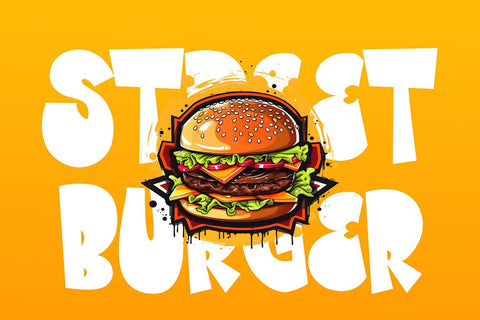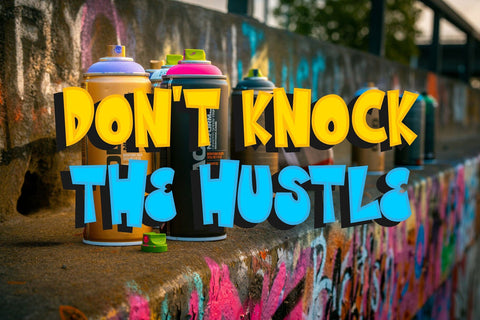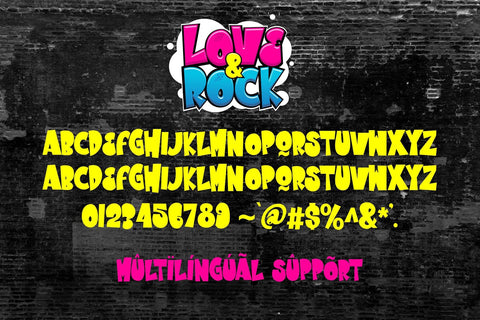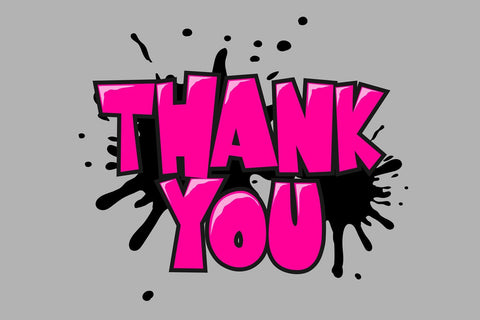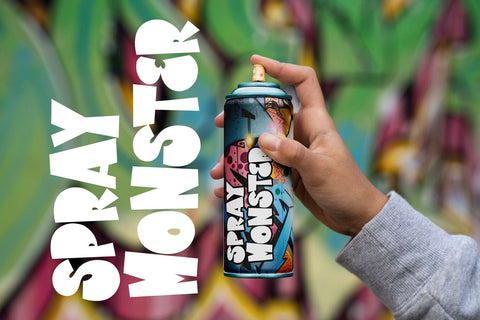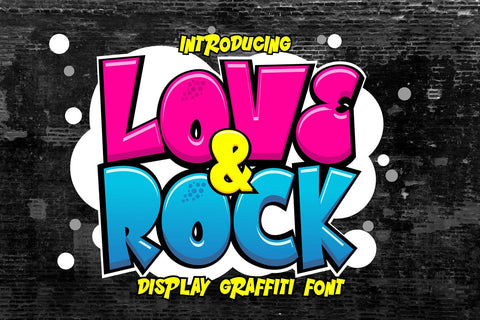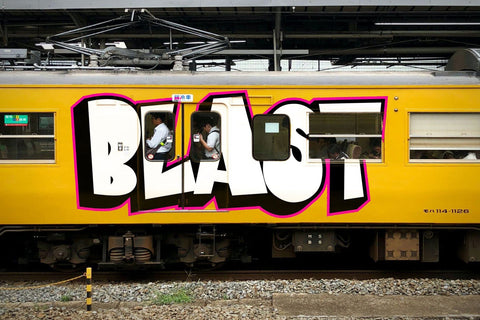
Love and Rock - Display Graffiti font
"Love and Rock" is a bold and whimsical display font, characterized by its thickness and quirky design. Fonts like these often feature playful and unconventional letterforms, adding a touch of personality to the text. "Love and Rock" is well-suited for creative projects that require a bold and eye-catching typographic style with a hint of whimsy. It could be an excellent choice for designs related to music, entertainment, or any context where a vibrant and distinctive font is desired.
- Graffiti Characters looks